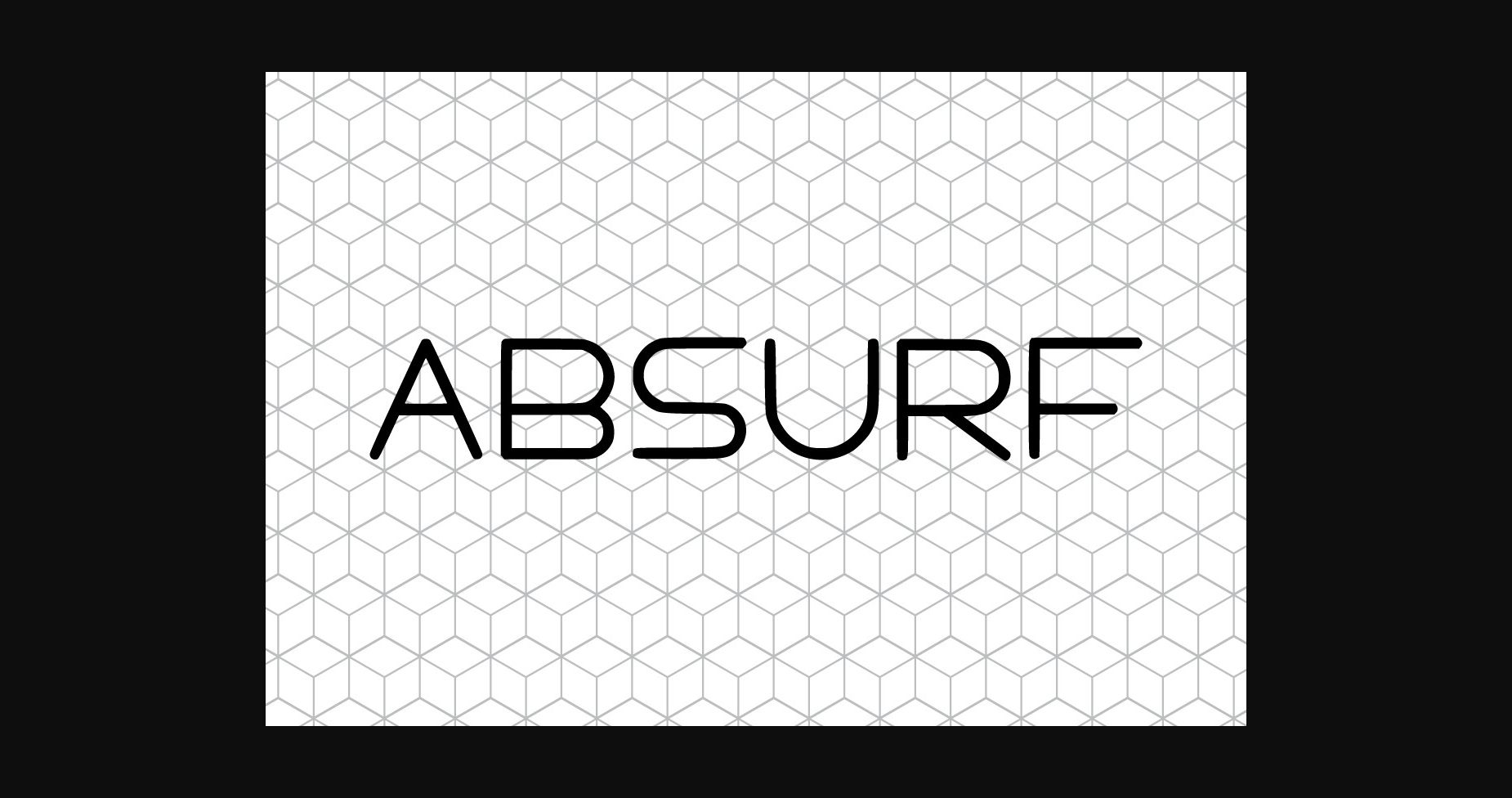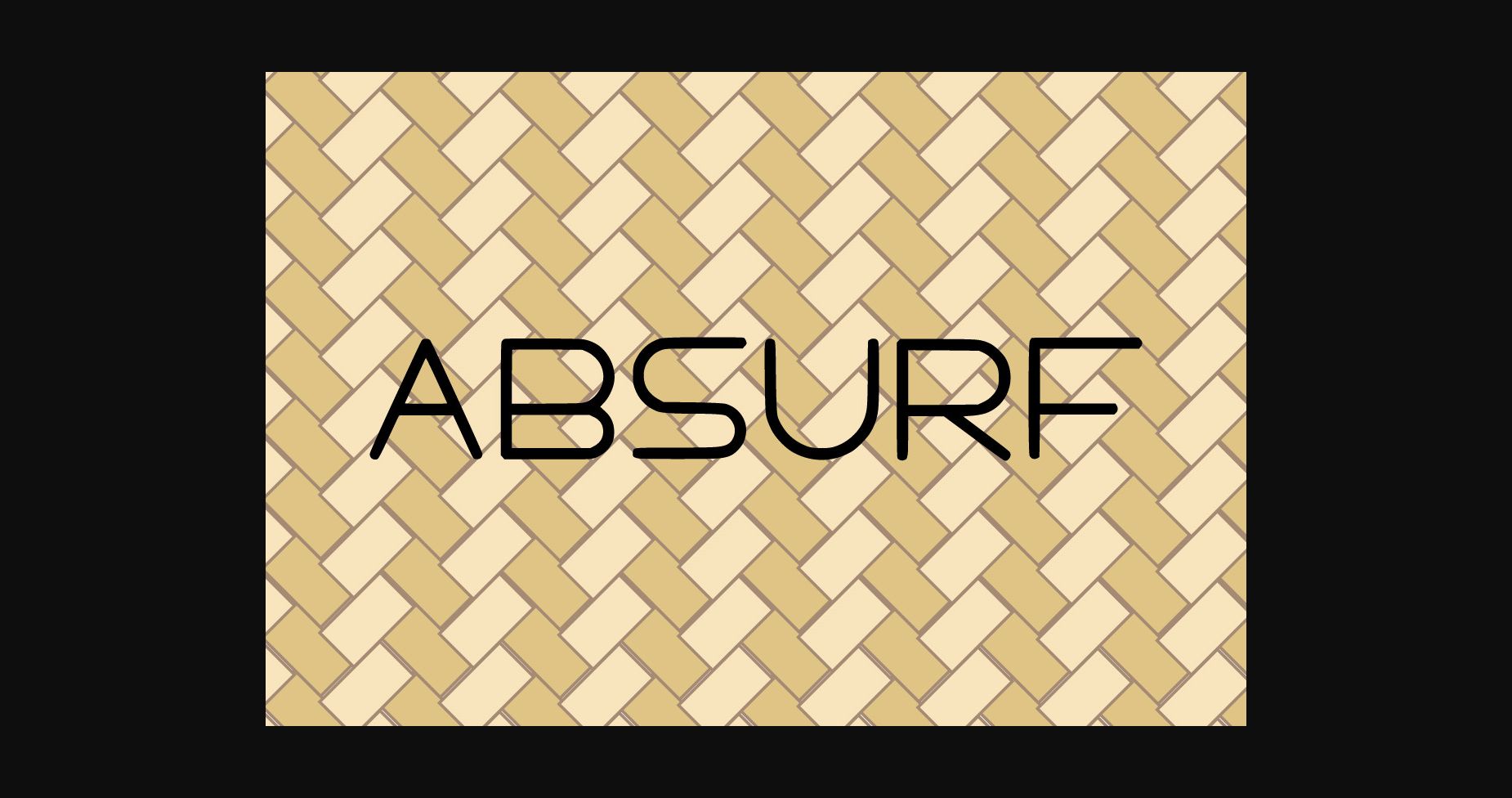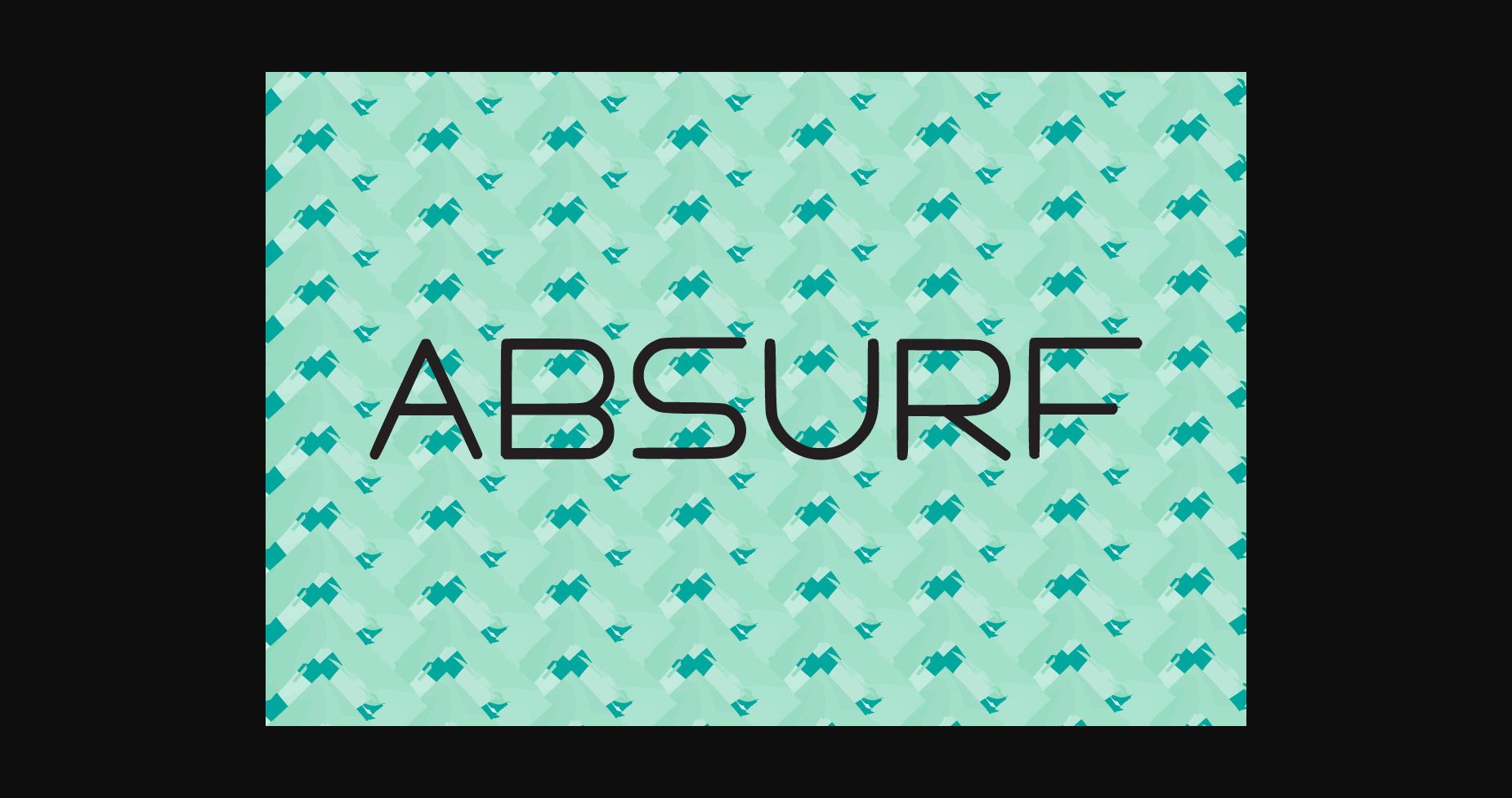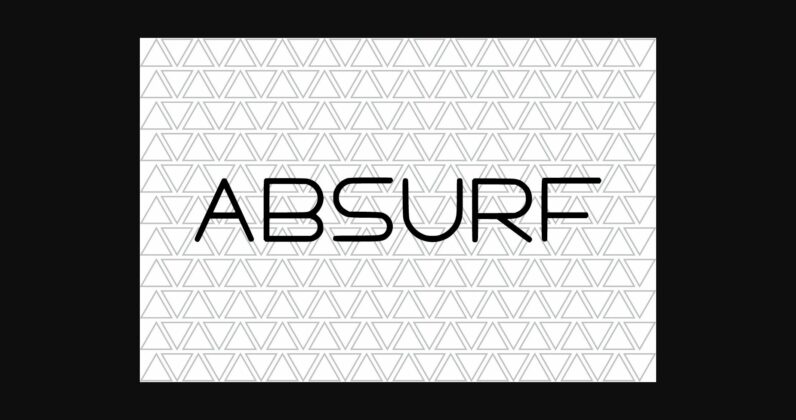
Absurf is a thin lettered and cool sans serif font. It can easily be matched to an incredibly large set of projects, so add it to your creative ideas and notice how it makes them stand out!